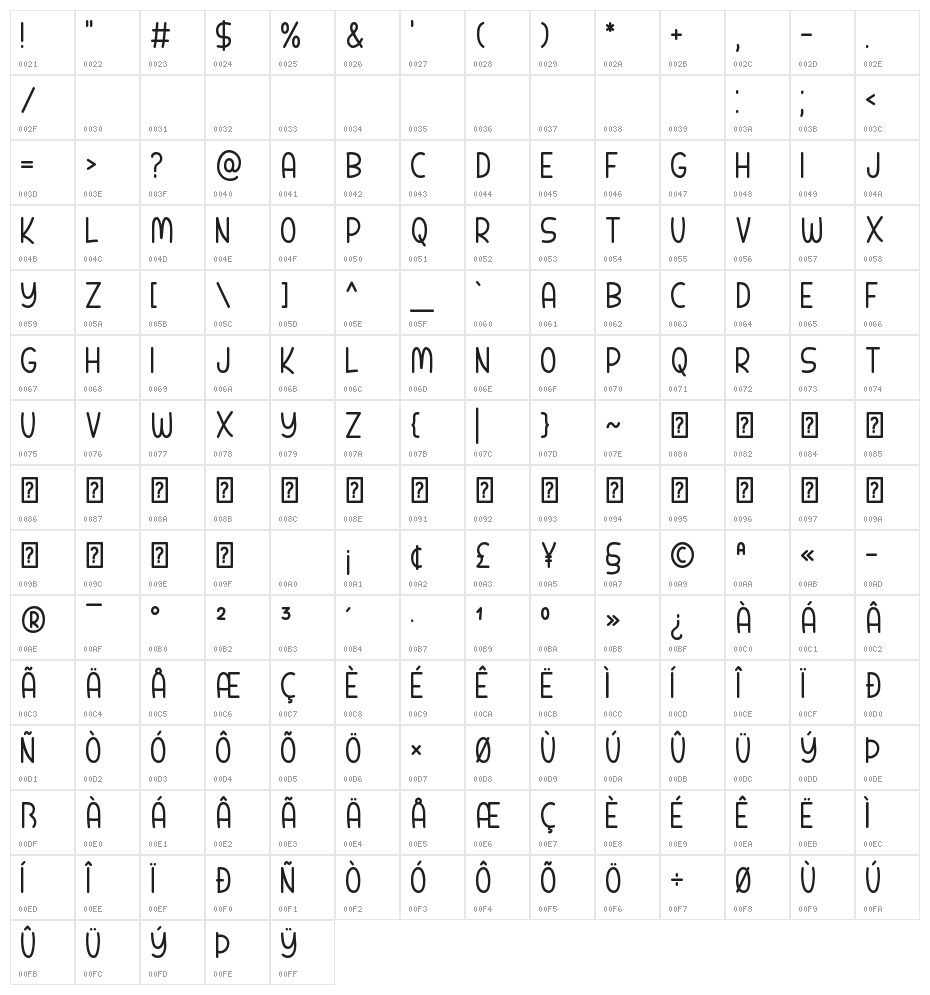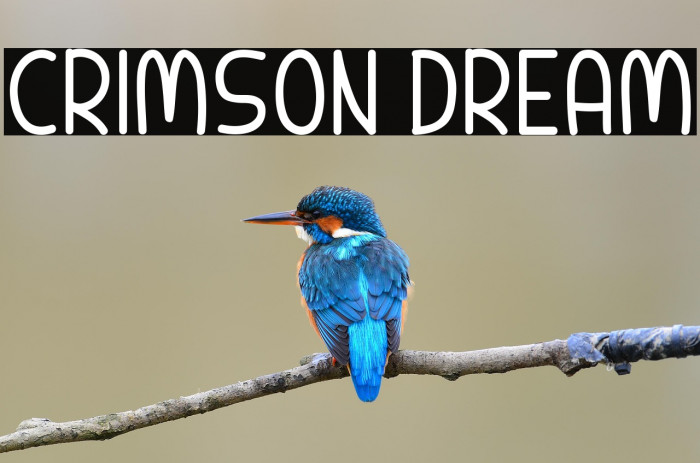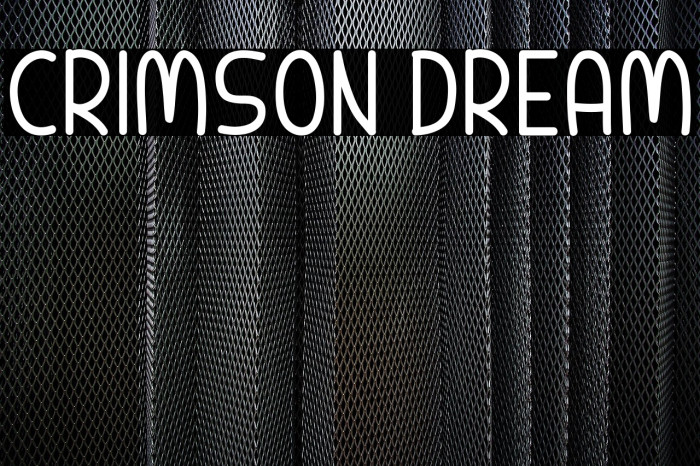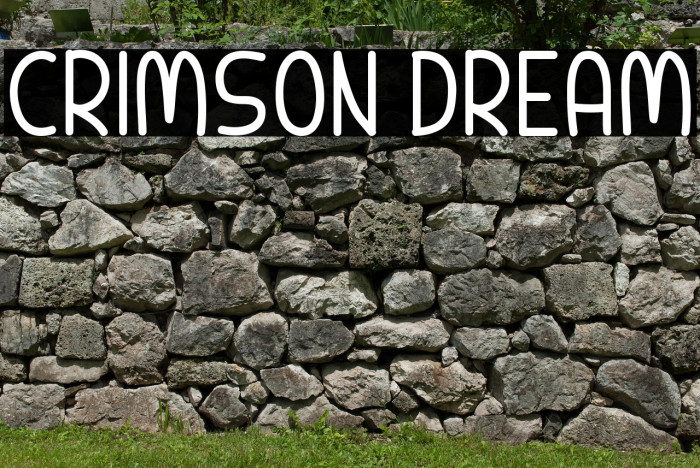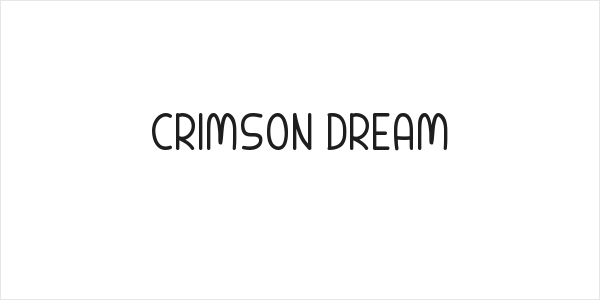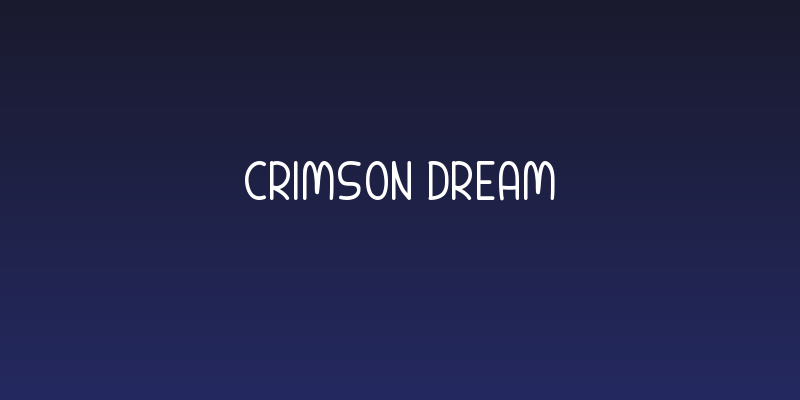
Crimson Dream Font
Crimson Dream Description
This font features a playful and rounded style, characterized by smooth curves and a friendly appearance. The letters are evenly spaced, providing a clean and approachable look. The uppercase and lowercase letters maintain a consistent design, with rounded edges that soften the overall appearance. The numerals and special characters follow the same rounded theme, ensuring uniformity across all glyphs. This font's simplicity and warmth make it suitable for a variety of applications where a casual and inviting tone is desired.
| Proposed Projects | Ideal for children's books, casual branding, greeting cards, and playful posters. |